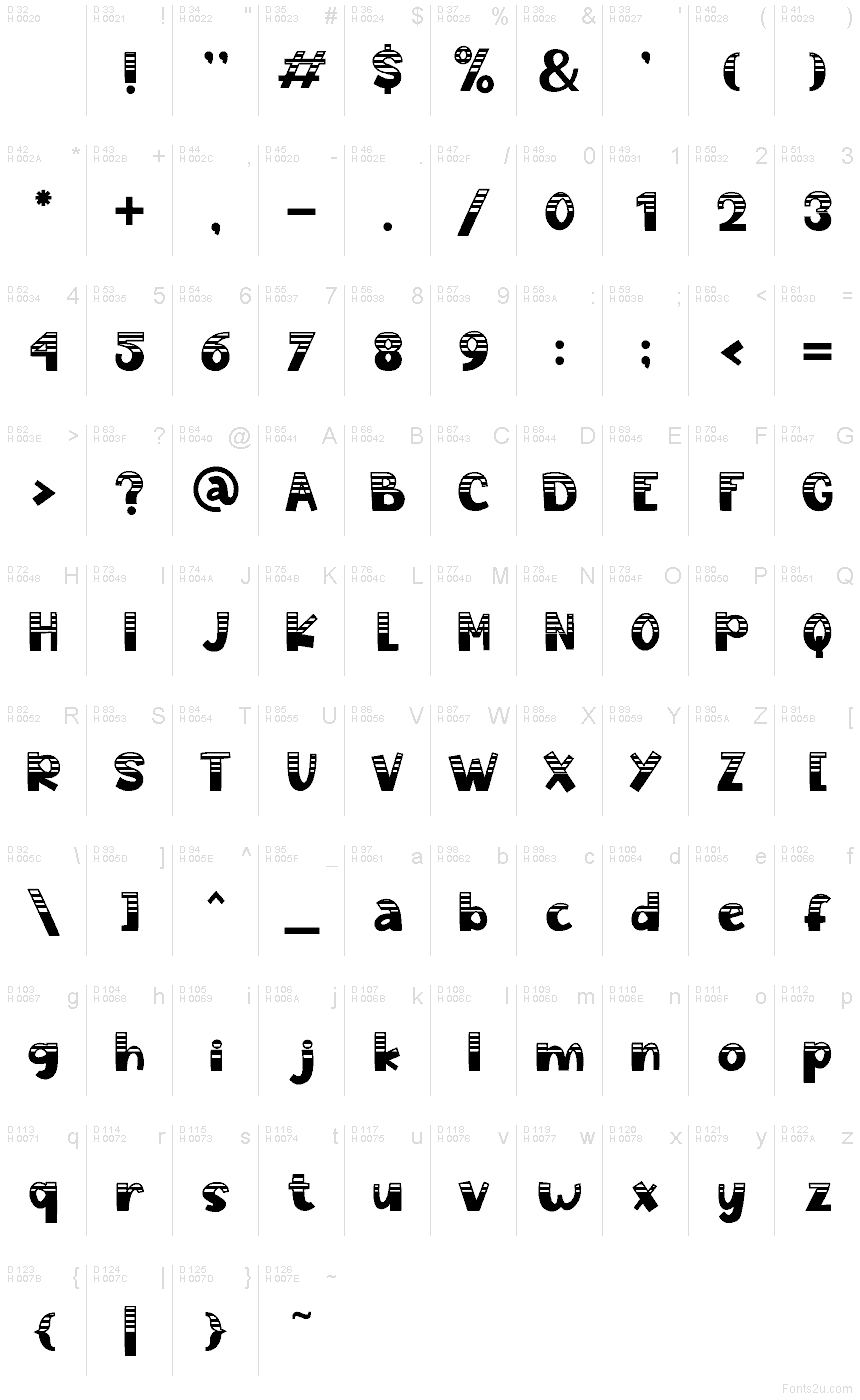
Frosty Faktur Deco
Frosty Faktur Deco font by PutraCetol Studio is a free decorative Christmas typeface that turns any headline into a cozy holiday moment. Chunky, rounded letters feel soft and hand-cut, while the striped caps and snowy cutouts give each word the look of wrapped presents stacked in a window display. The spacing is generous and friendly, so even busy phrases stay readable while still looking fun and festive.
Using Frosty Faktur Deco, your “Merry Christmas” doesn’t just sit on the page—it practically jingles. This free font shines on greeting cards, gift tags, party invitations, kids’ crafts, seasonal posters, and social media graphics, especially for winter sales or events. Try pairing it with a clean sans serif for body text and keep Frosty Faktur Deco large for titles to let all that playful holiday texture really show.